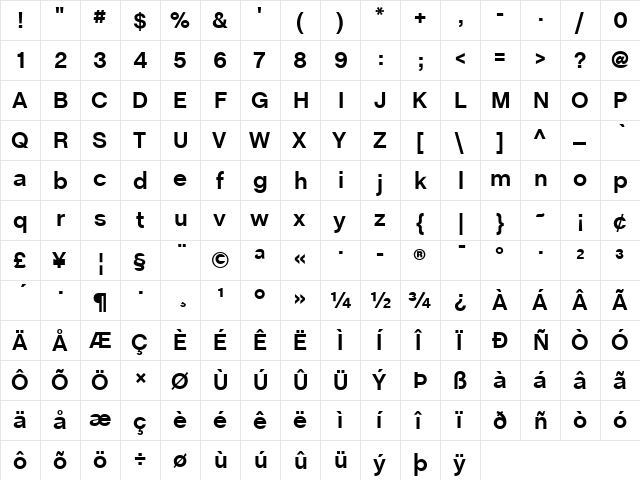
ChaletBook Bold
| Designer | House Industries |
Design Context for ChaletBook Typeface
ChaletBook takes a measured approach to typography — its balanced proportions and neutral character make it a reliable workhorse for both digital and print work. The heavy weight commands attention and anchors typographic hierarchies.